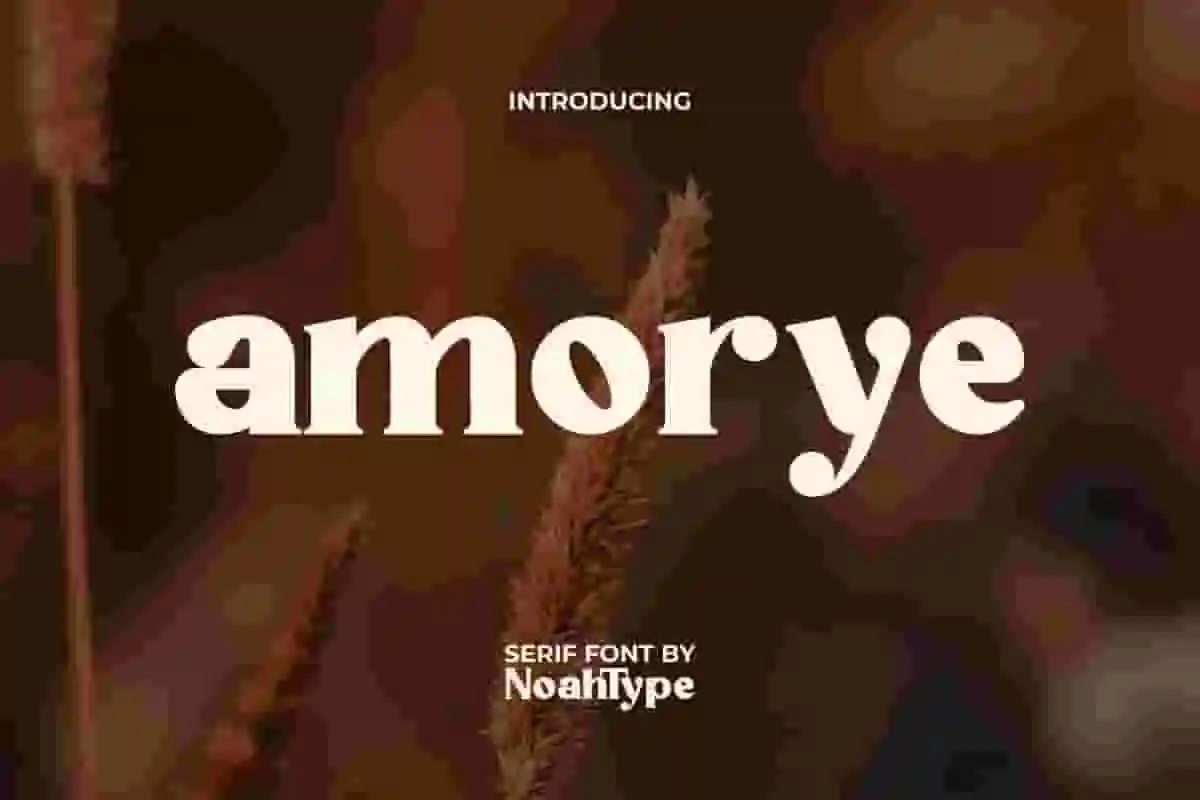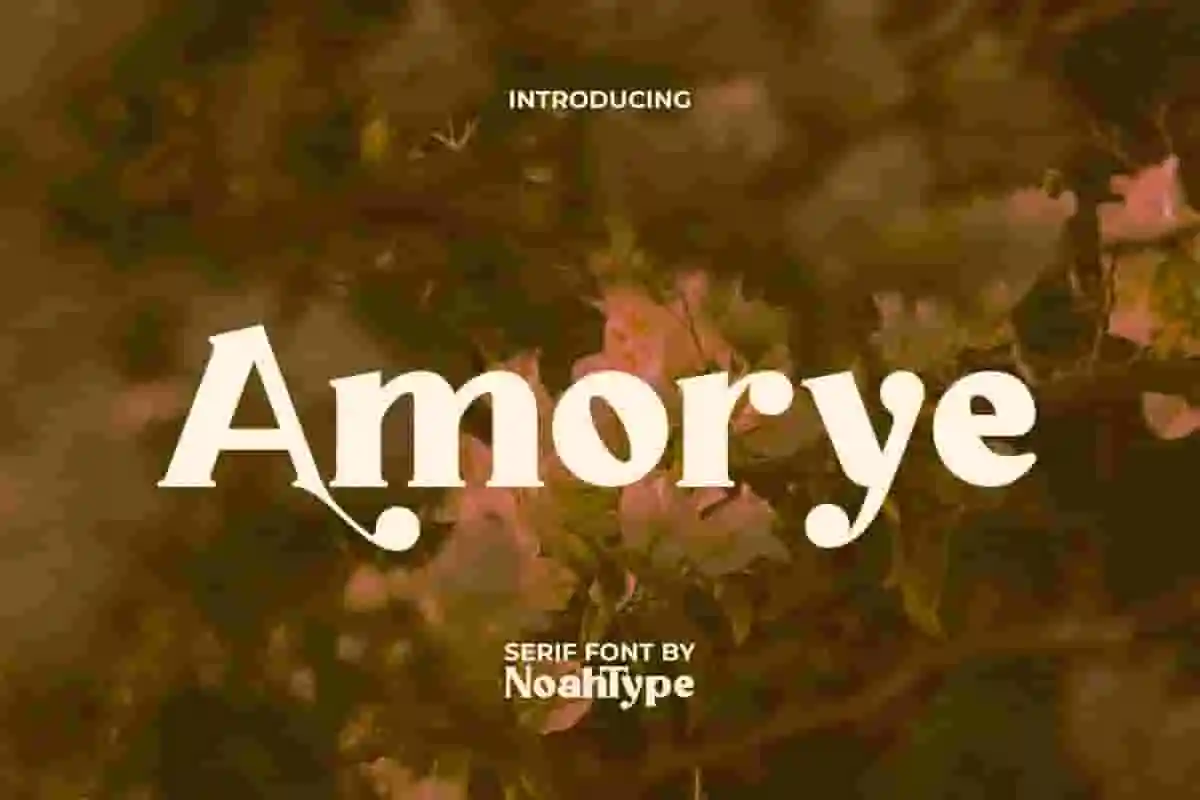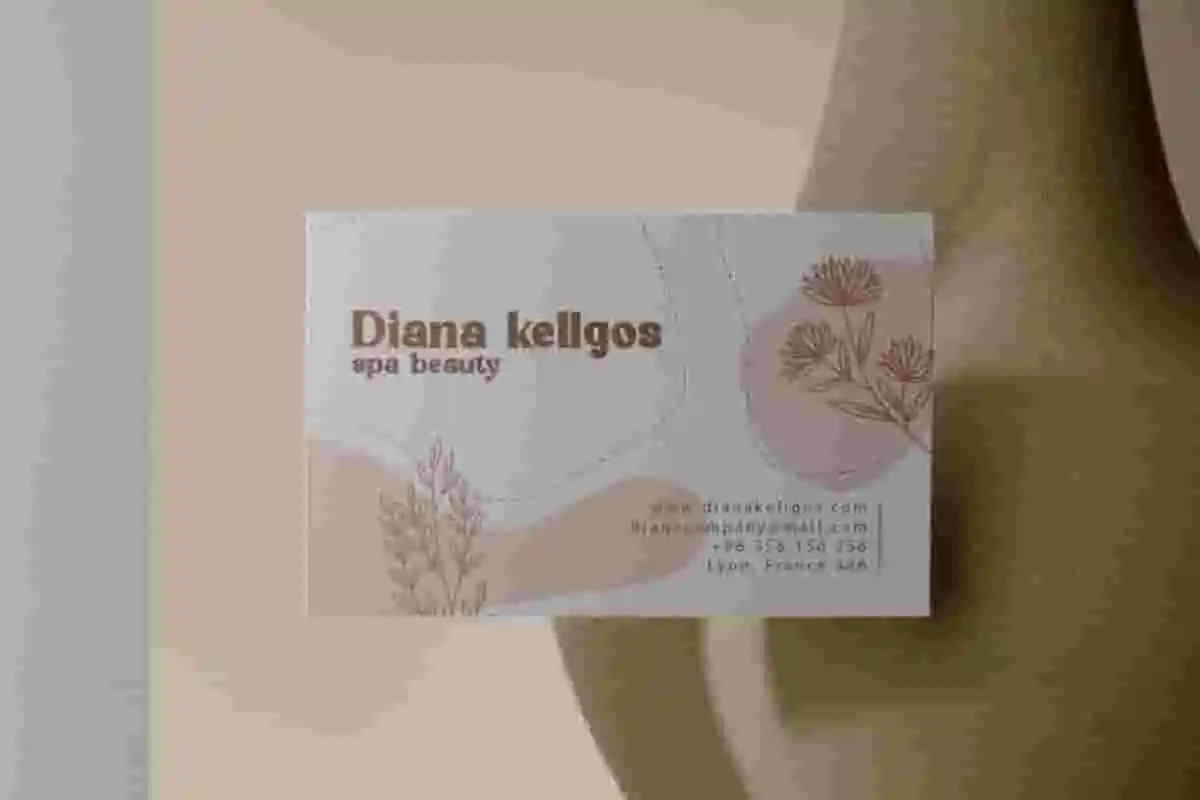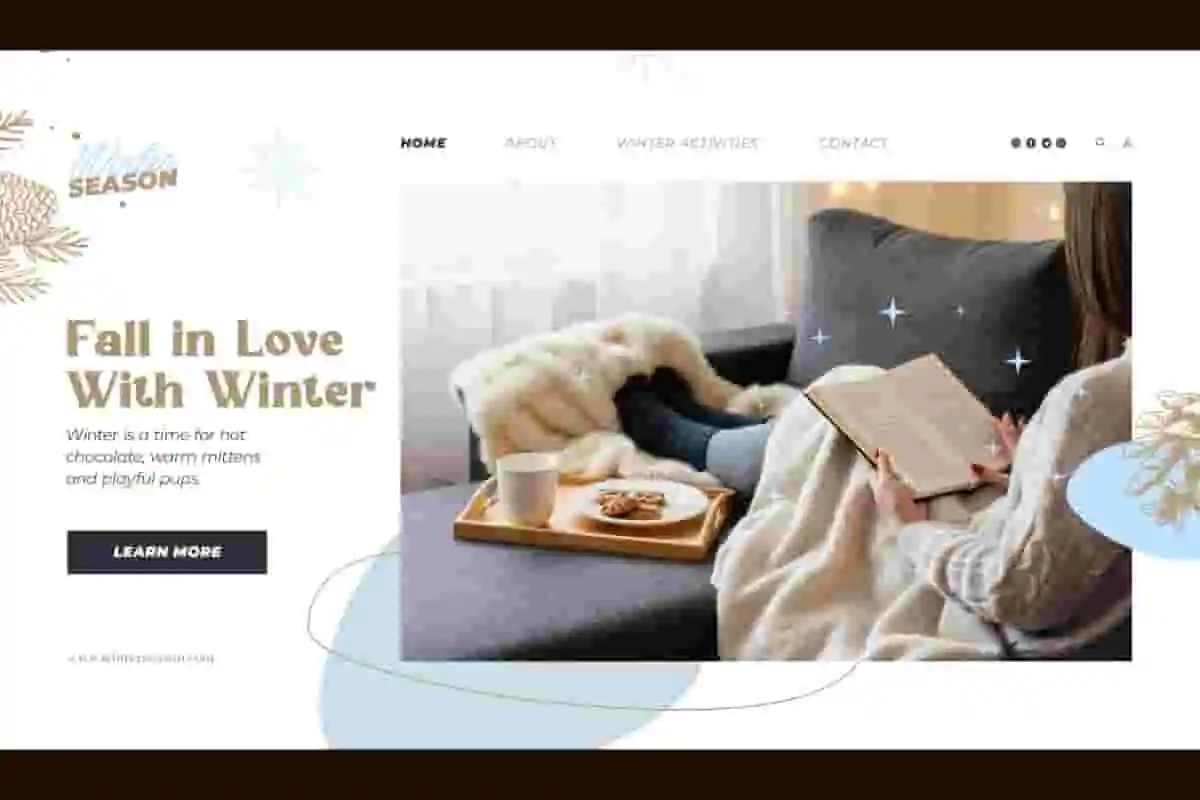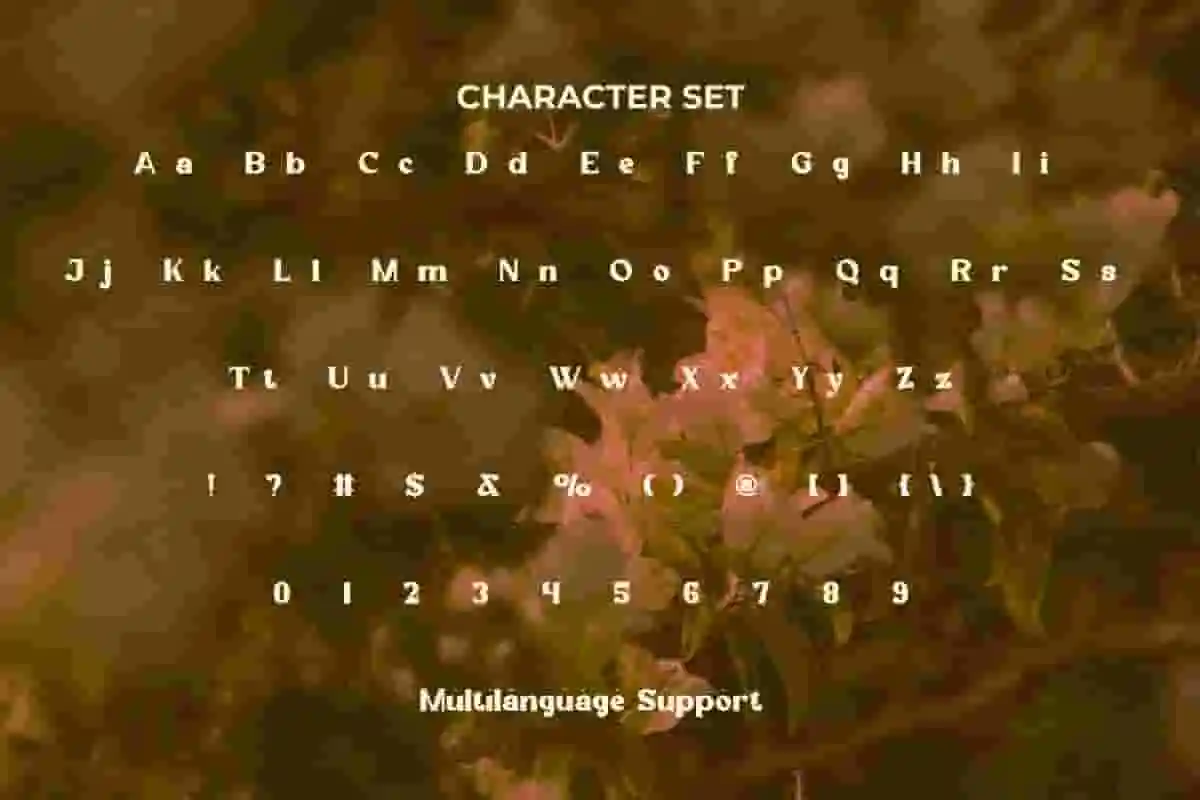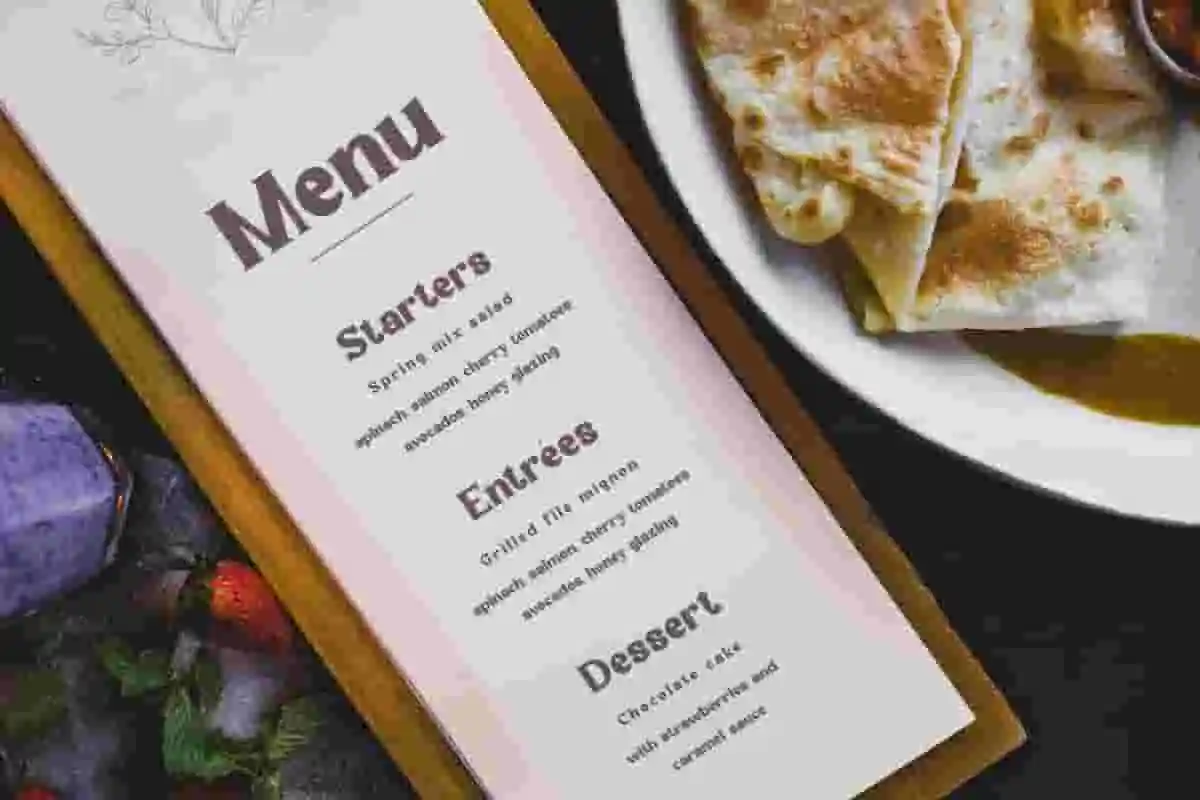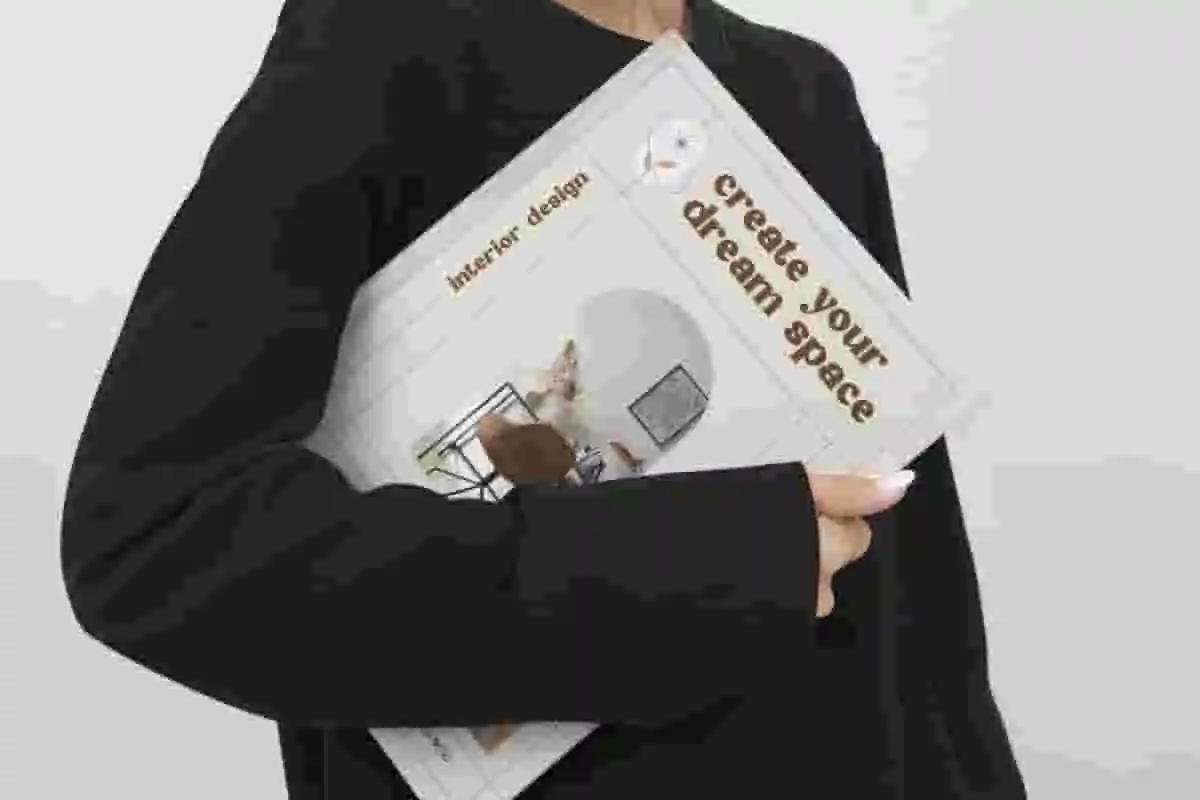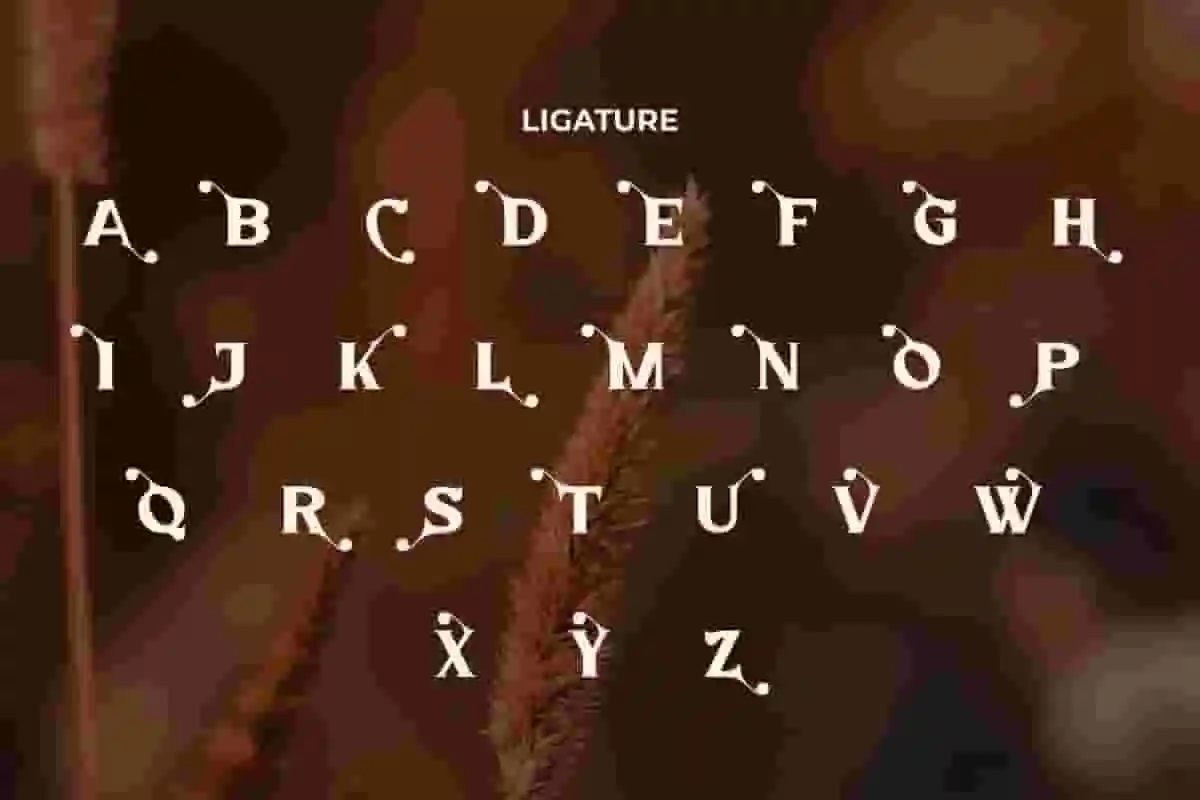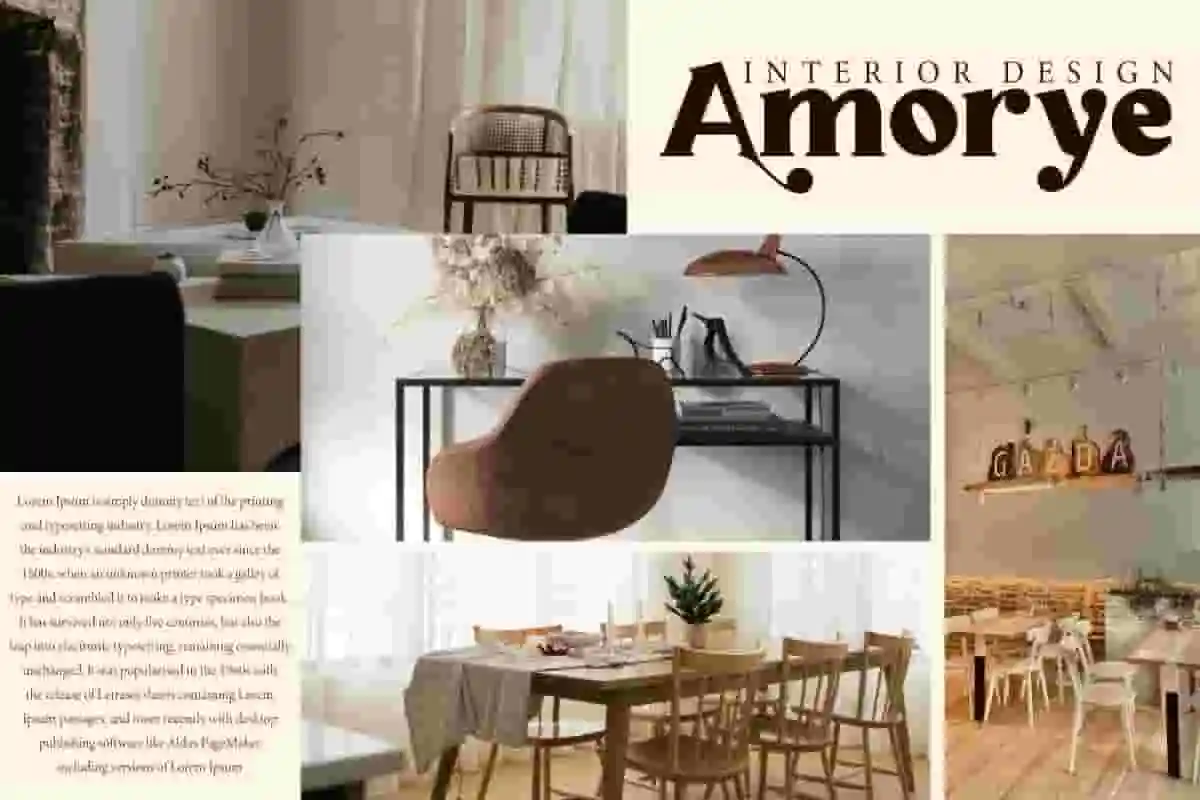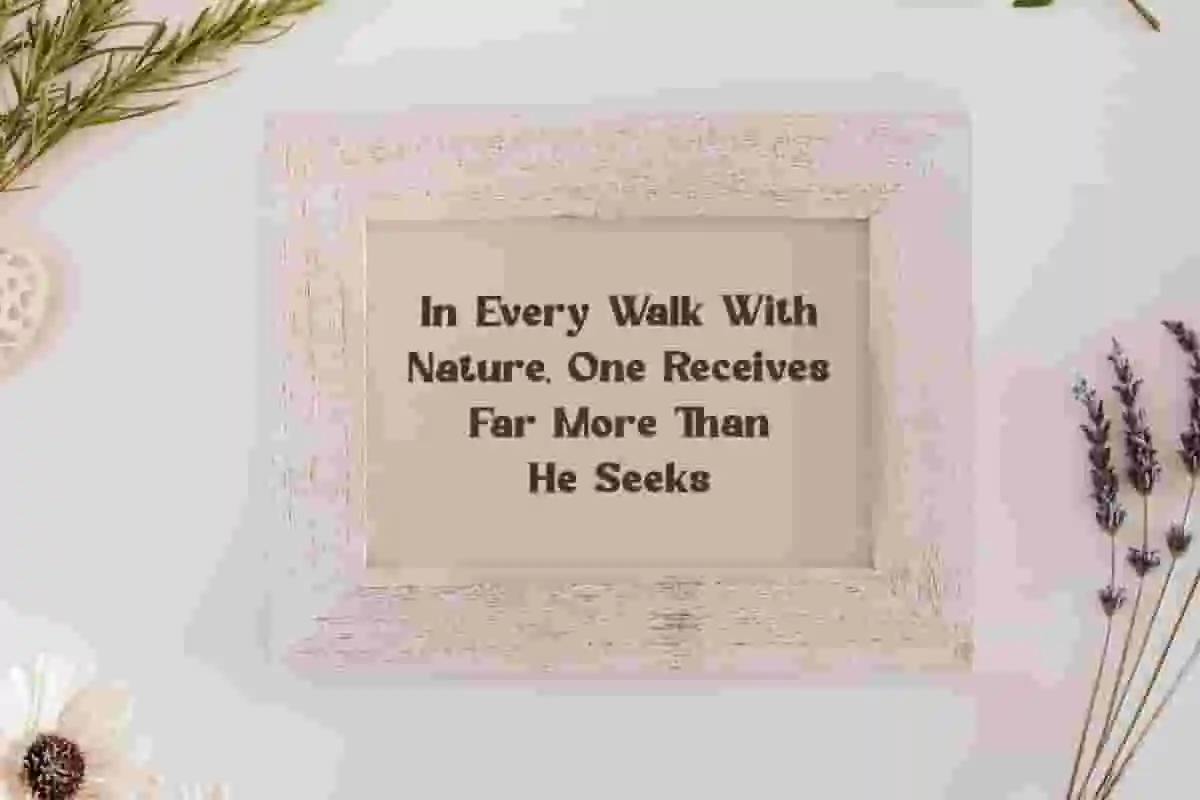
Amorye Font is an aesthetic serif style font by NoahType. This font has a medium weight which makes it look adorable and beautiful on designs. It will be good for any designs, such as stationery, brand image, invitation, custom design, label, marketing material, menu, poster, product packaging, quotes, signage, web and many more!
Amorye Font includes a complete set of Uppercase and Lowercase Basic Characters, Numerals, Punctuation and Symbol. The addition of Alternate character of this font will give beautiful look and also a perfect choice for many industries, such as beauty product, event or wedding organizer, accessories, advertising, fashion, movie, photography, printing, publishing, spa and salon, travel, etc.